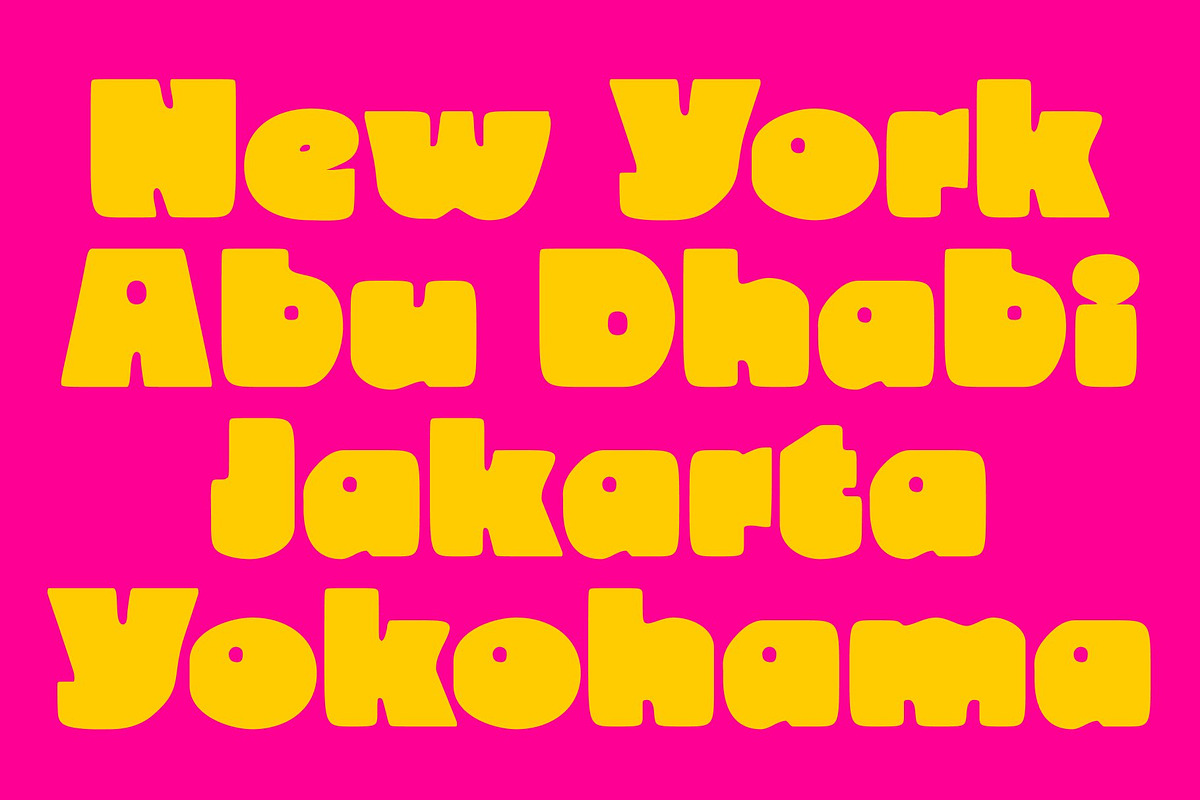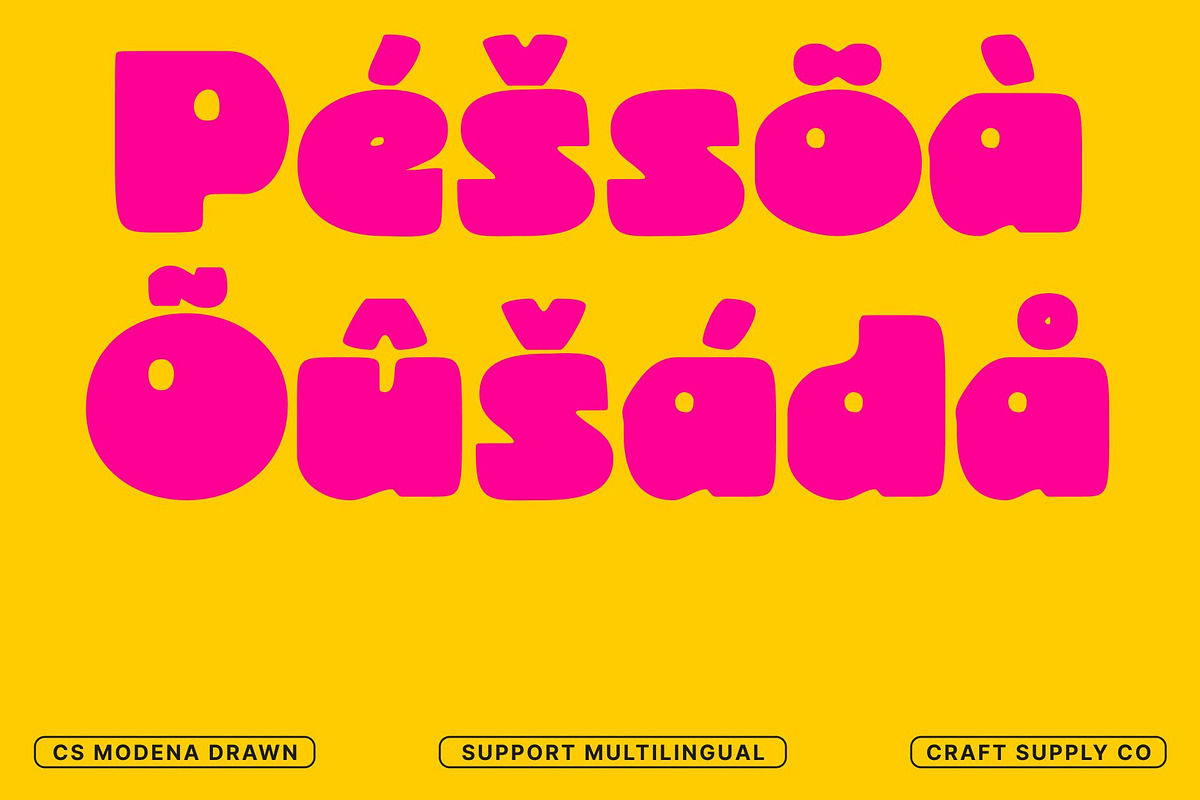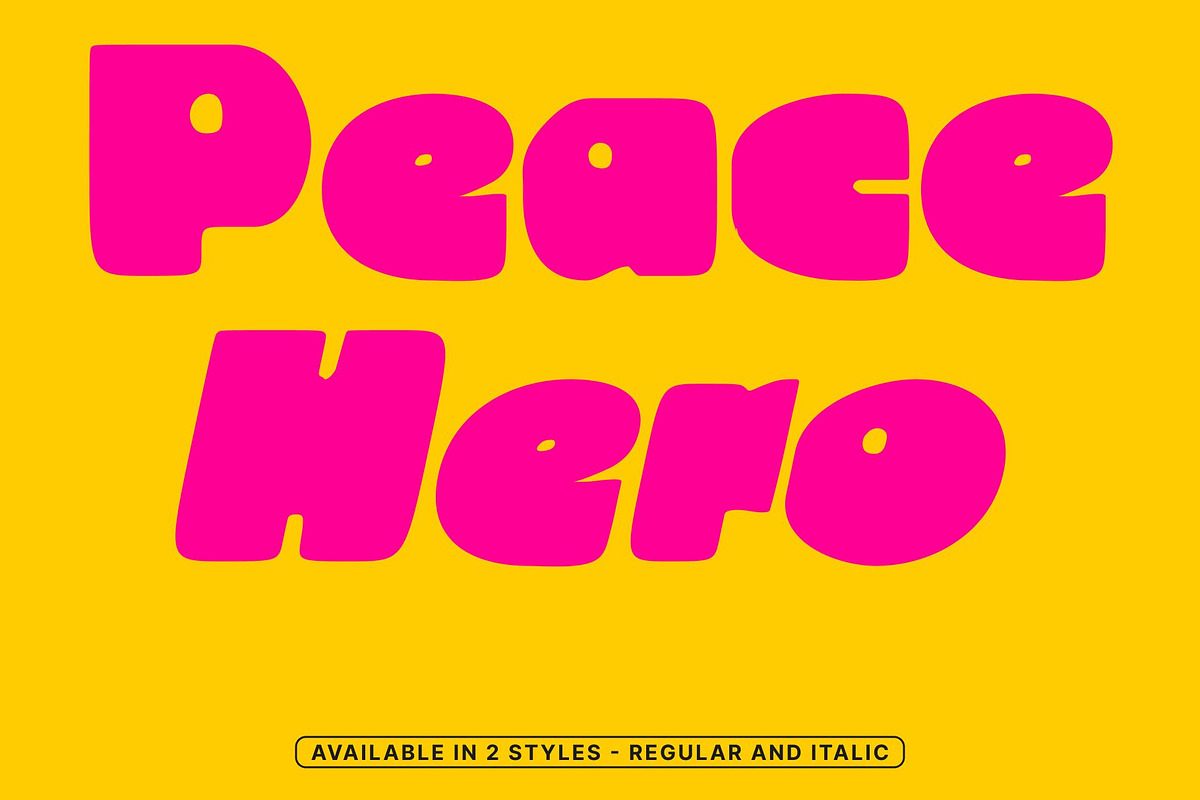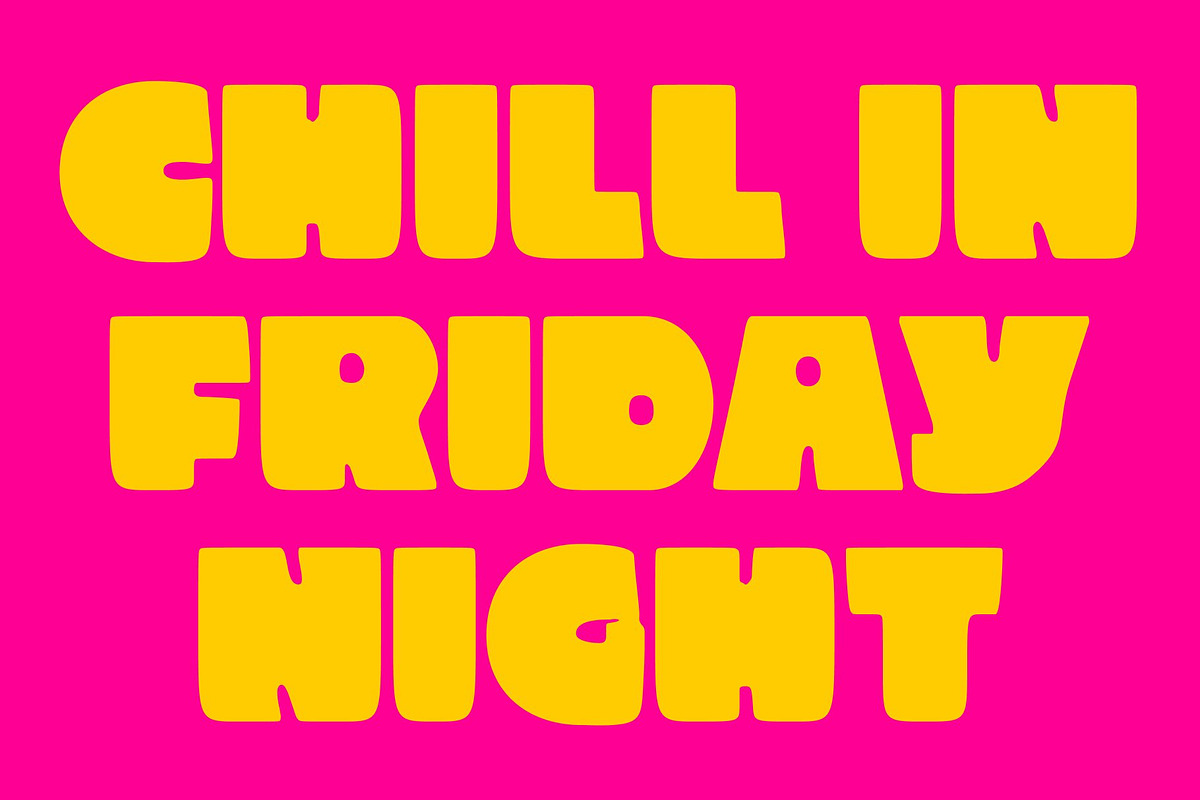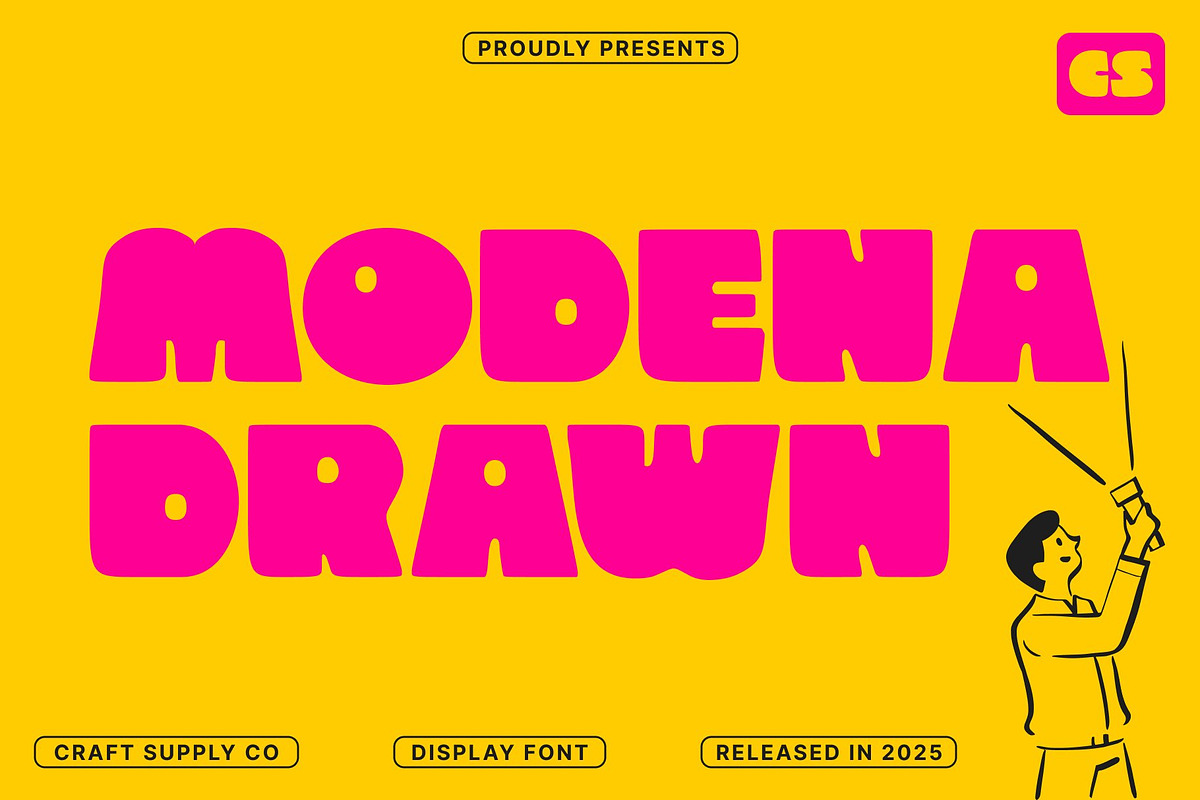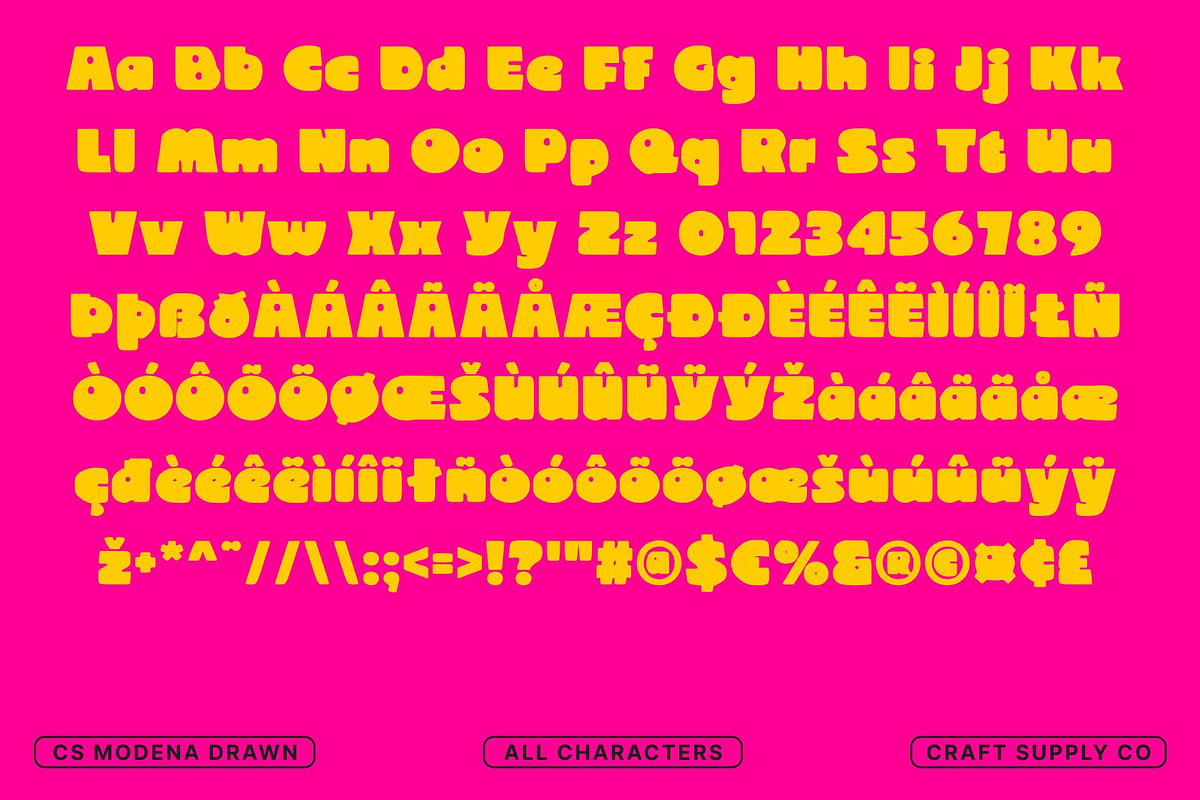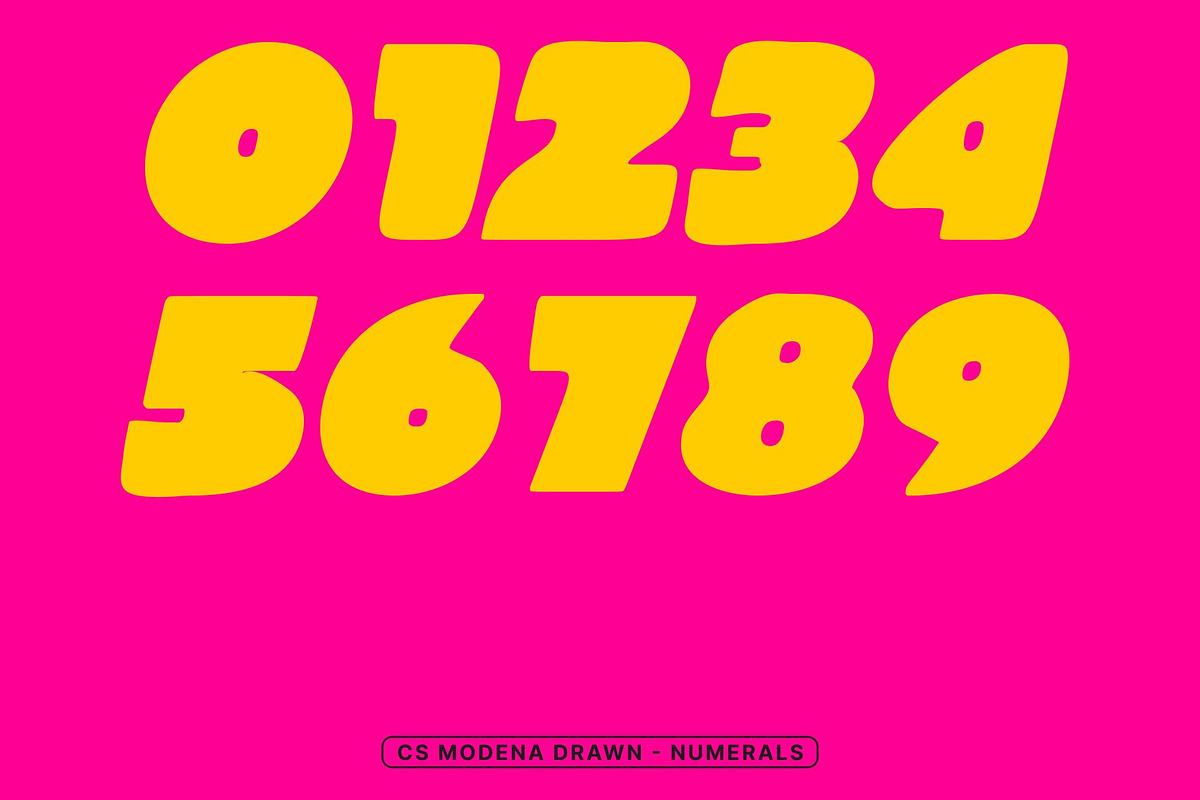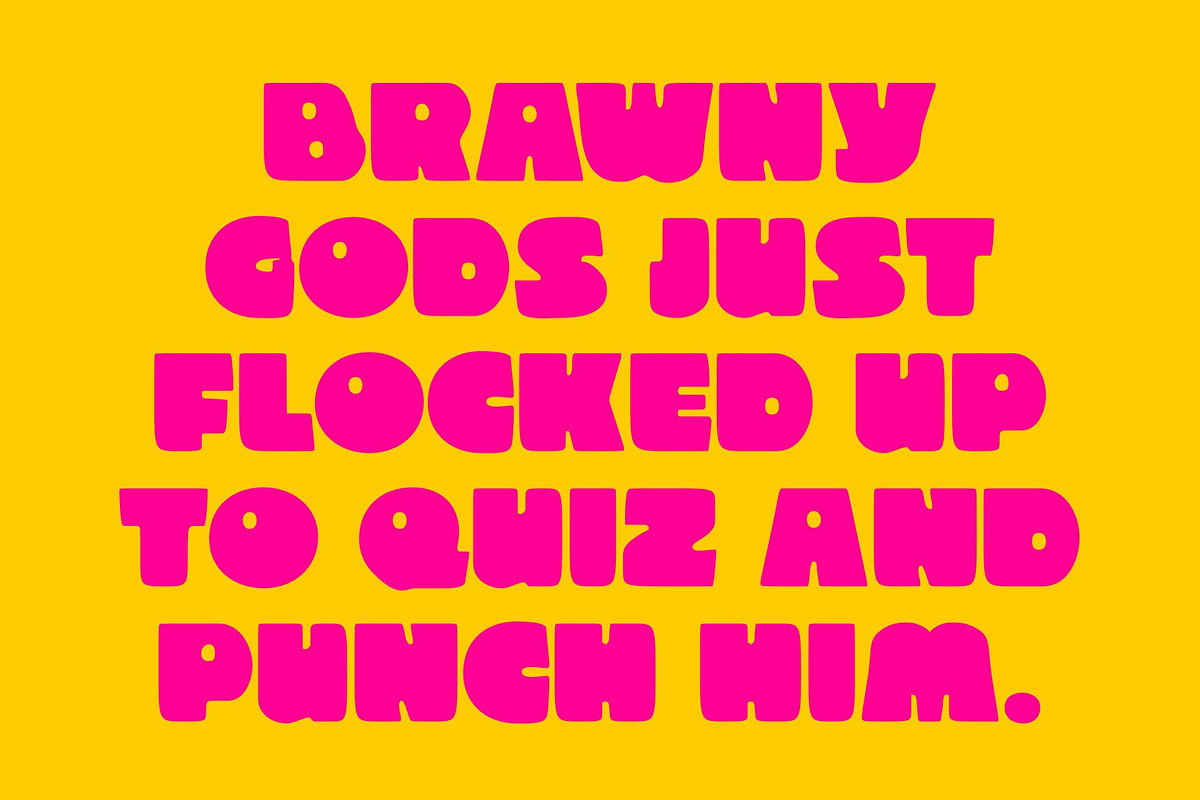
CS Modena Drawn
CS Modena Drawn – Bold Display Font with Funky Charm
Bold Sans Serif with Hand-Drawn Energy This is a bold sans-serif display font built with strong, clean letterforms and confident proportions. Its solid structure delivers clarity and impact, while the subtle hand-drawn texture introduces a lively, funky charm that adds personality without sacrificing readability.
Expressive Character with Modern Confidence Beyond its bold form, this font carries a unique expressive edge. The drawn details bring warmth and originality, giving the font an eye-catching presence that feels fresh and engaging. This balance allows it to work equally well in modern corporate layouts and creative, artistic projects.
Versatile for Strong Visual Statements Designed for impact, this font performs exceptionally well in headlines, branding, posters, logos, packaging, and social media graphics. Its bold weight ensures strong visibility, while its playful character helps designs feel approachable and memorable.
A Perfect Blend of Strength and Style This font bridges geometric strength with stylish individuality. Whether used in minimalist compositions or energetic campaigns, it delivers a confident, modern voice ensuring every message stands out with authority, charm, and lasting visual appeal.